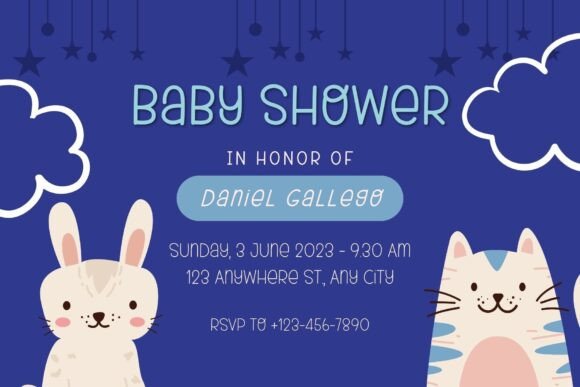
Introducing Fox Admire Font: The Perfect Typeface for Romantic and Whimsical Designs
Are you looking for a font that can add a touch of romance and playfulness to your designs? Look no further than Fox Admire Font, a fun and delightful typeface that features 4 versatile styles to suit any project. In this article, we’ll explore the features and benefits of Fox Admire Font, and show you how to use it to create stunning designs for Valentine’s Day or any romantic-themed project.
What is Fox Admire Font?
Fox Admire Font is a modern and charming typeface that is perfect for designers who want to add a touch of whimsy and romance to their work. This font features 4 versatile styles:
- Regular: A clean and playful default style that is perfect for everyday designs.
- Slant: A tilted variation that adds a lively and dynamic vibe to your designs.
- Thin: A light and elegant option that is ideal for minimal designs.
- Thin Slant: Combines the thin strokes with a subtle slant for a stylish twist.
Key Features of Fox Admire Font
Fox Admire Font comes with a range of features that make it perfect for romantic and whimsical designs. Some of the key features include:
- 4 Versatile Styles: With 4 different styles to choose from, you can use Fox Admire Font for a wide range of projects, from playful and casual to elegant and sophisticated.
- Clean and Playful Design: Fox Admire Font features a clean and playful design that is perfect for adding a touch of whimsy to your designs.
How to Use Fox Admire Font
Fox Admire Font is perfect for a wide range of design projects, including:
- Valentine’s Day Cards and Invitations: Use Fox Admire Font to create beautiful and romantic Valentine’s Day cards and invitations.
- Romantic Banners and Posters: Add a touch of whimsy and romance to your banners and posters with Fox Admire Font.
- Logos and Branding: Use Fox Admire Font to create a unique and memorable logo or brand identity.
- Social Media Graphics: Add a touch of playfulness and romance to your social media graphics with Fox Admire Font.
Tips and Tricks for Using Fox Admire Font
Here are a few tips and tricks for getting the most out of Fox Admire Font:
- Experiment with Different Styles: Don’t be afraid to experiment with different styles and combinations of styles to find the perfect look for your project.
- Pair with Other Fonts: Fox Admire Font pairs well with a range of other fonts, so don’t be afraid to experiment with different combinations.
Why Choose Fox Admire Font?
So why choose Fox Admire Font for your next design project? Here are just a few reasons:
- Unique and Memorable: Fox Admire Font is a unique and memorable typeface that will help your designs stand out from the crowd.
- Versatile: With 4 different styles to choose from, Fox Admire Font is perfect for a wide range of design projects.
In conclusion, Fox Admire Font is a fun and delightful typeface that is perfect for romantic and whimsical designs. With its 4 versatile styles, free Valentine doodle SVG and PNG files, and clean and playful design, Fox Admire Font is the perfect choice for any designer looking to add a touch of romance and whimsy to their work. So why not give Fox Admire Font a try today and see how it can help take your designs to the next level?